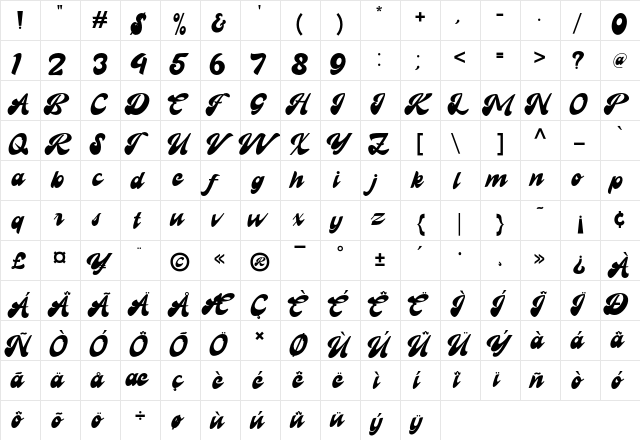
Recollect Regular
| Foundry | Stringlabs |
| Designer | Stringlabs |
Design Context for Recollect Typeface
Recollect is a composed and adaptable typeface that performs quietly and consistently across a wide range of design contexts.